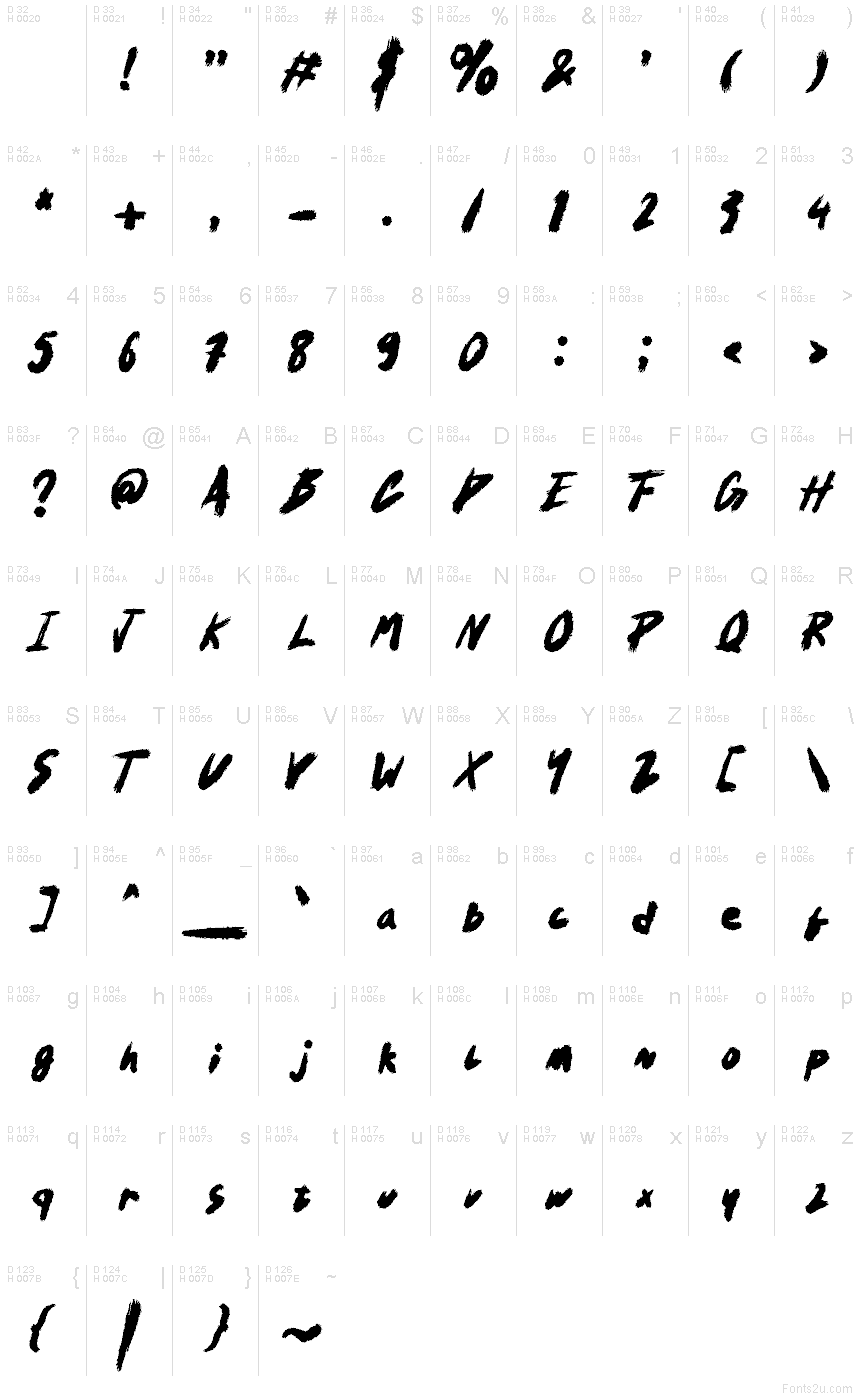
Berscare
Berscare font by Dhabee Studio is a free scary display font. Built for goosebumps, it swings in with clawed brush strokes, ragged edges, and inky smears that feel freshly scrawled. The letters lurch with uneven rhythm and bold weight, turning a simple headline into a jump scare while staying readable from a distance.
Using Berscare, you can nail horror movie posters, haunted house flyers, game titles, book covers, Halloween merch, and YouTube thumbnails. Set it big with slightly loose tracking for maximum drip and dread, and pair it with a clean, narrow sans to keep details legible in the supporting text. This free font makes your message scream.